Wedding Fonts for Cricut: Beautiful Script & Display Fonts for Your Big Day
Planning a wedding project on your Cricut? The right font turns a simple invitation, sign, or favor tag into something guests remember. Below are the fonts worth downloading for your big day, plus a bonus list of Cricut-friendly fonts that work beautifully for other craft projects too.
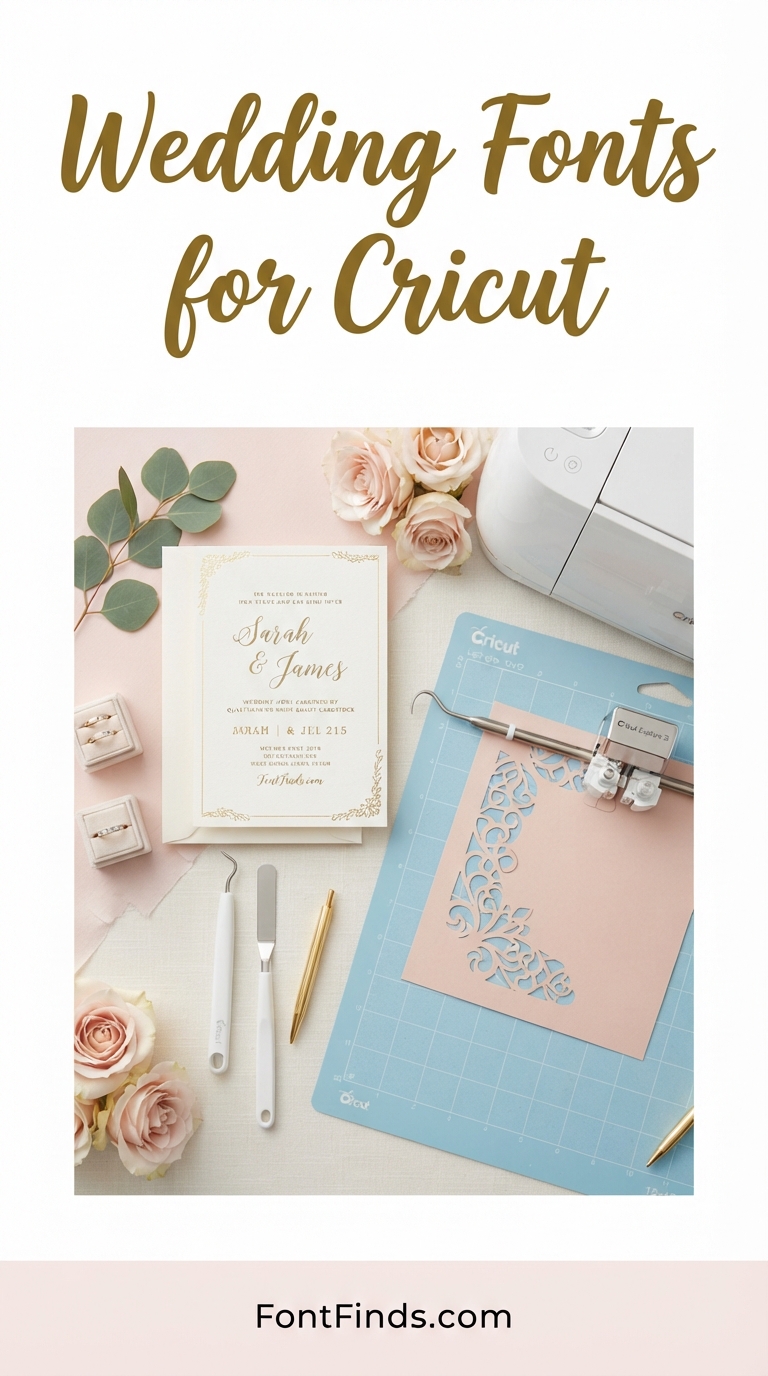
Best Wedding Fonts for Cricut Projects
1. Stylish Handwriting
This font duo pairs a bold modern display style with a sweet, authentic handwriting script complete with elegant swashes. It’s built with clean lines that cut cleanly on Cricut, and the full OpenType support for stylistic sets means you get plenty of flourish options for names, dates, and “Mr & Mrs” signage. It works just as well on invitations as it does on tote bags and welcome signs.
2. Crafer Cricut
A cute, minimalist font built on bold, modern shapes with an elegant touch. It stays readable at small sizes, which makes it a solid choice for save-the-date cards, table numbers, and other detail-heavy pieces where an overly decorative script would get lost.
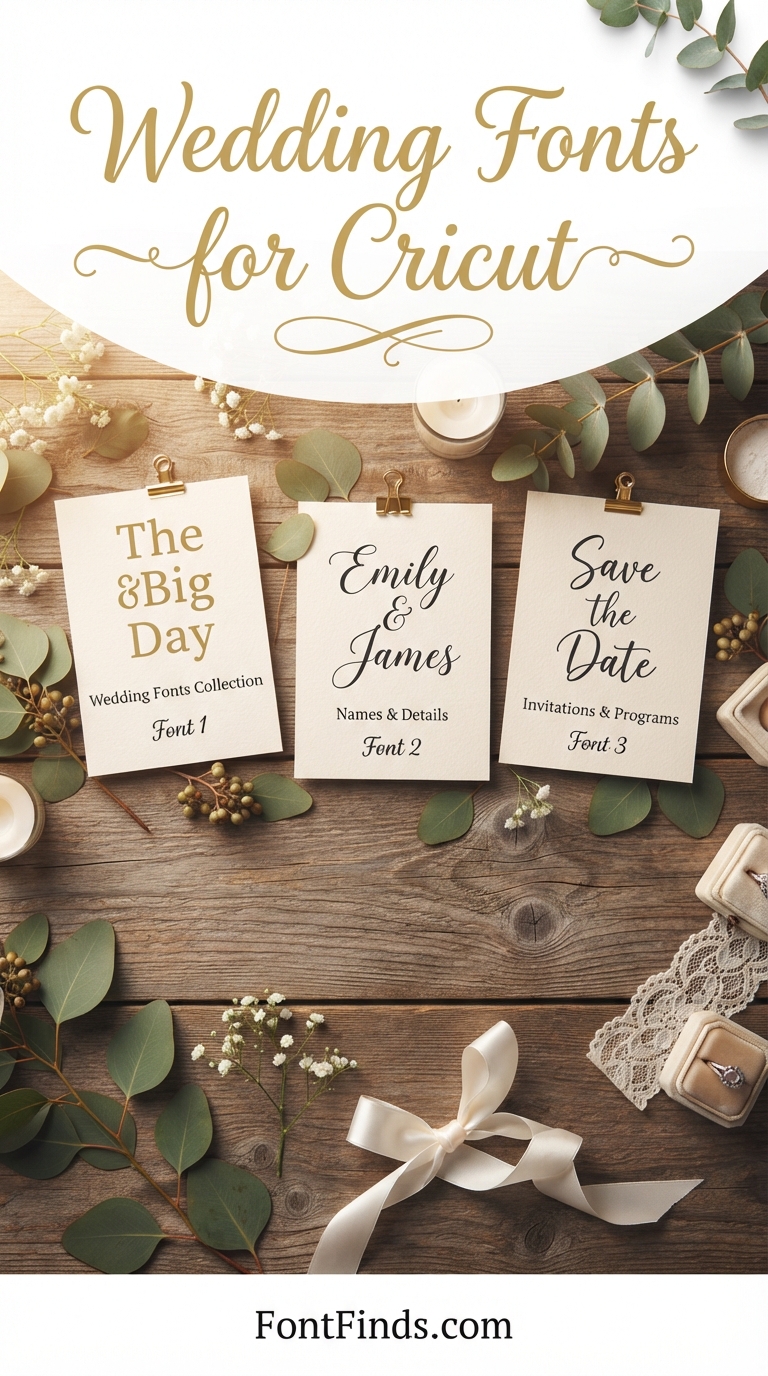
3. Cricut Handmade
A bold, chunky display font with a hand-made, cartoon-inspired charm. It’s not a traditional wedding script, but for rustic or boho celebrations it adds a playful, personal touch to welcome signs, favor tags, and photo booth props. Clean vector paths make it easy to weed on vinyl.
Bonus: More Cricut-Ready Fonts for Your Craft Toolbox
These fonts aren’t wedding-specific, but each one is genuinely useful for Cricut crafters working on kids’ projects, apparel, branding, or seasonal decor. Two of them are color OpenType-SVG fonts, which work with Cricut’s Print Then Cut feature rather than blade cutting — that’s noted below so you know what you’re getting.
- Cricut Kidscript — a tall, hand-drawn display font with a casual, cheerful rhythm. Great for kids’ crafts, classroom decor, and playful planner labels.
- Jersey Modern — a bold varsity display font inspired by collegiate lettering. Ideal for team logos, school spirit merchandise, and sports apparel.
- Cute Cricut — chunky, rounded, and easy to weed. Works well for vinyl decals, classroom posters, and kids’ apparel.
- Lollipop School — a rounded display font with a sugary-sweet vibe. Perfect for candy shop branding, party invitations, and school posters.
- Gnome Destiny — a cute color font (OpenType-SVG). Compatible with Cricut’s Print Then Cut feature, Photoshop, Illustrator, and Silhouette; not for direct blade cutting.
- Pridaem Cooper — a bold color font (OpenType-SVG) that also suits wedding invitations and signage when used with Print Then Cut. Same compatibility notes as above.